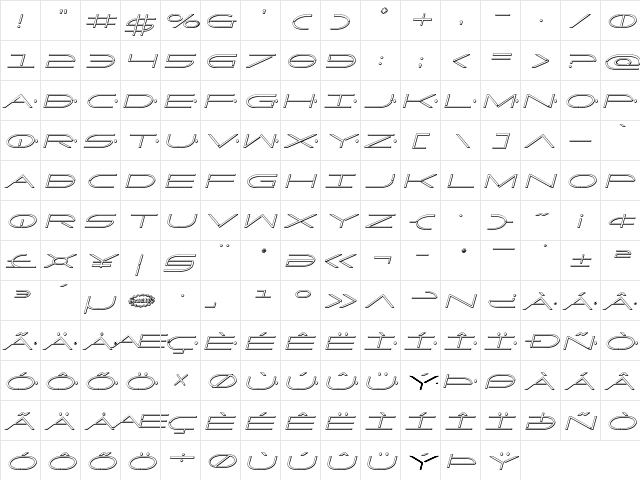
Factor 3D Italic Italic
Design Context for Factor 3D Italic Typeface
Factor 3D Italic takes a measured approach to typography — its balanced proportions and neutral character make it a reliable workhorse for both digital and print work. Its italic angle brings a sense of urgency and motion to the letterforms.